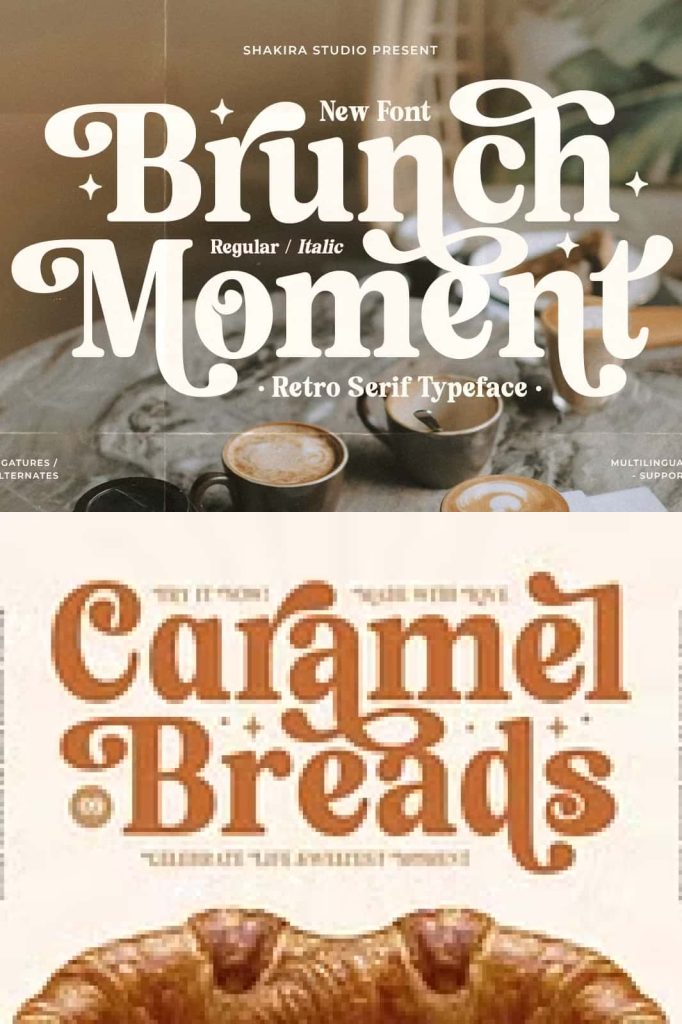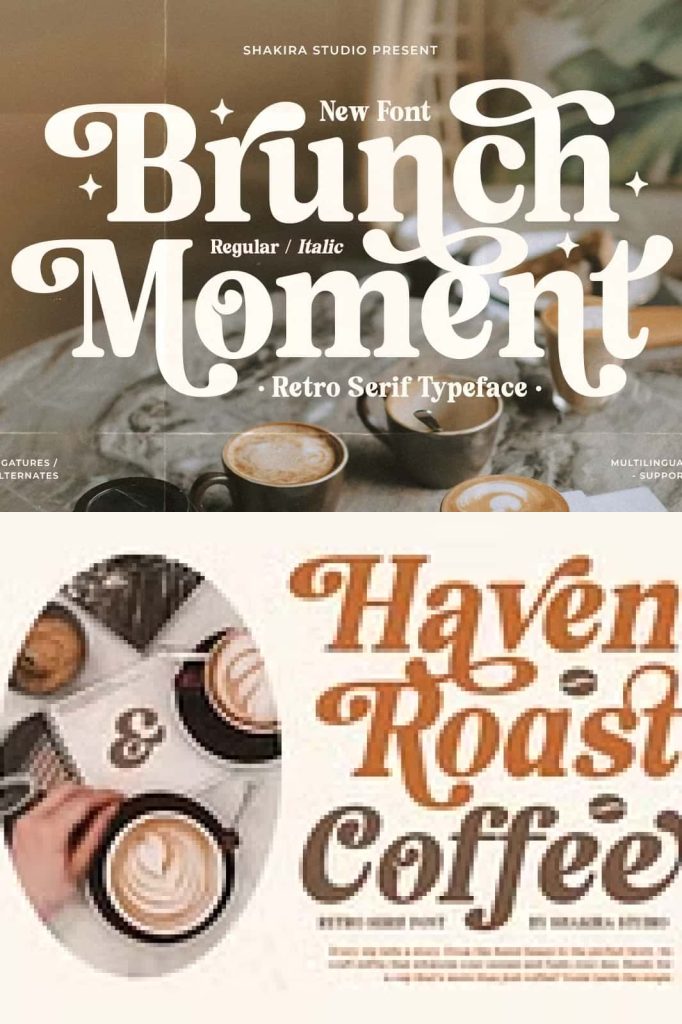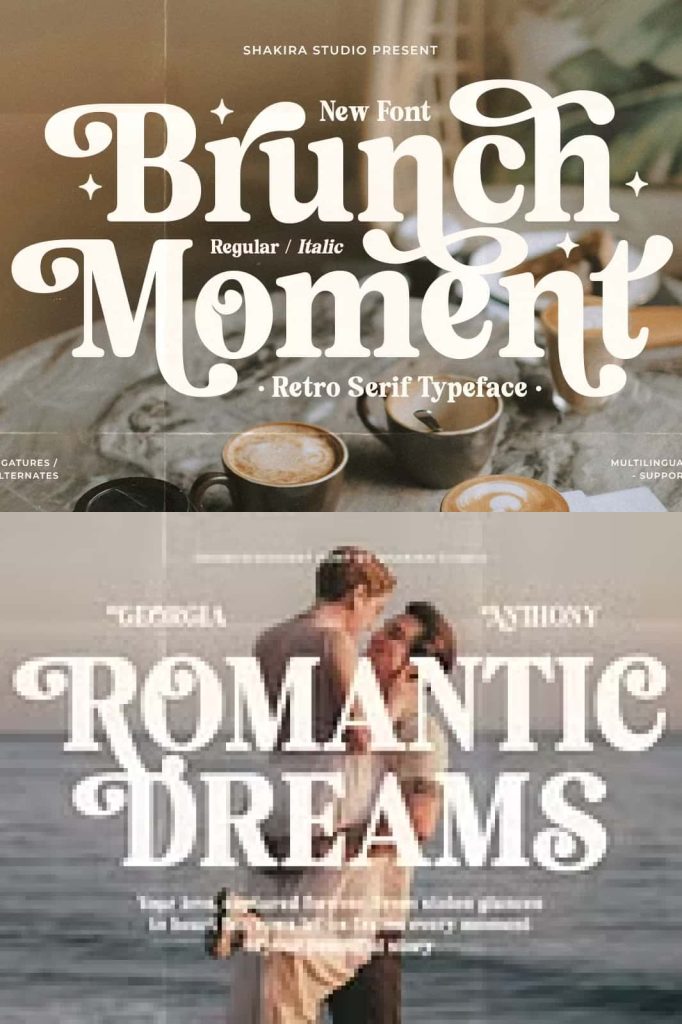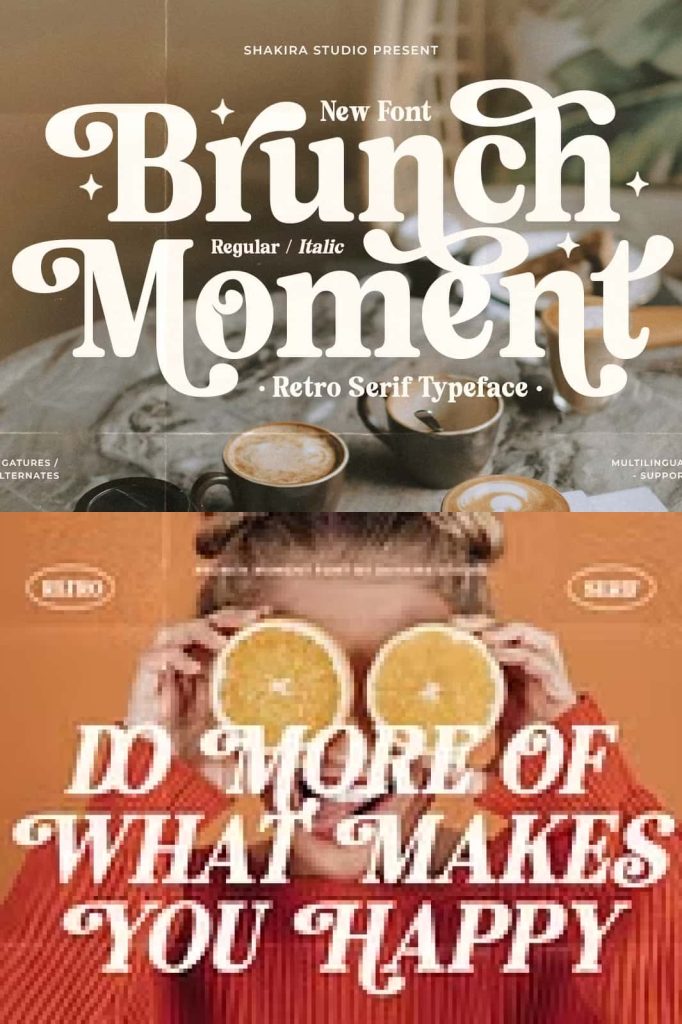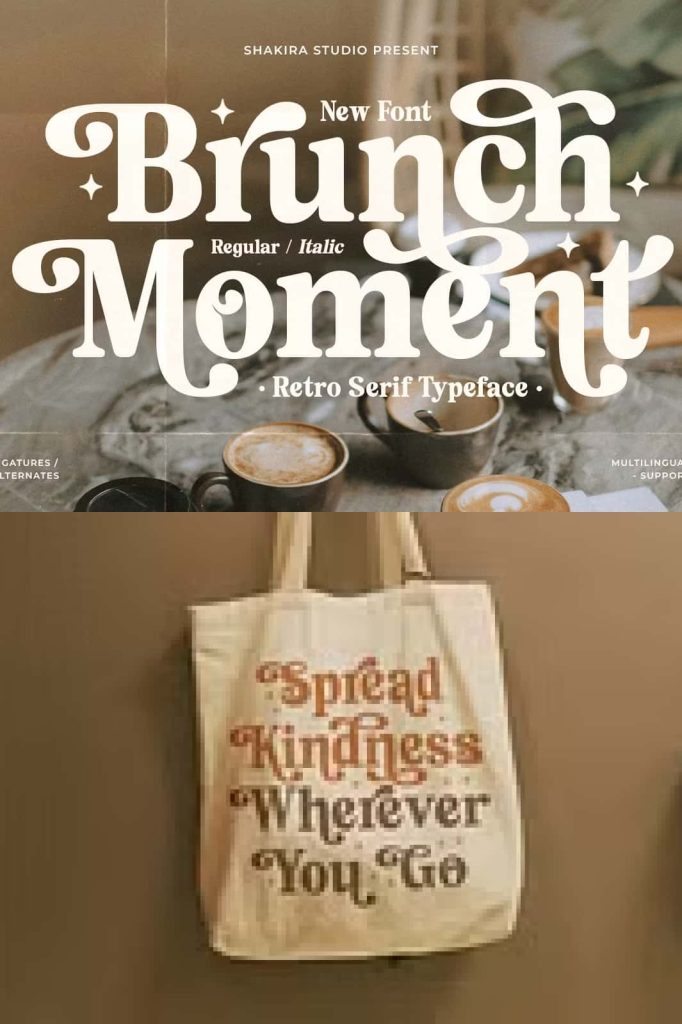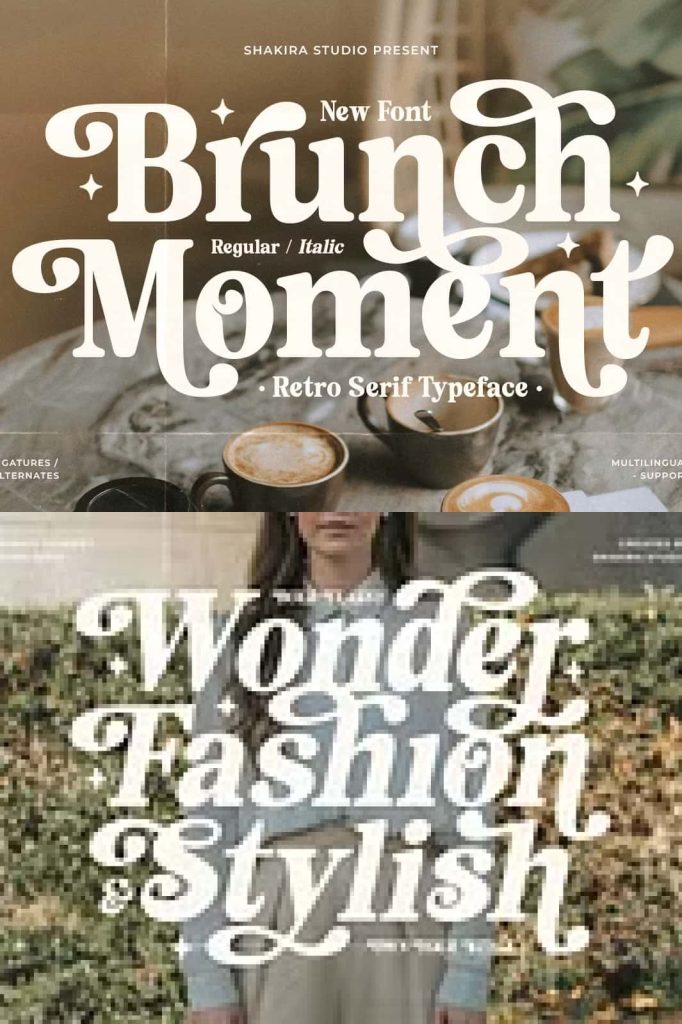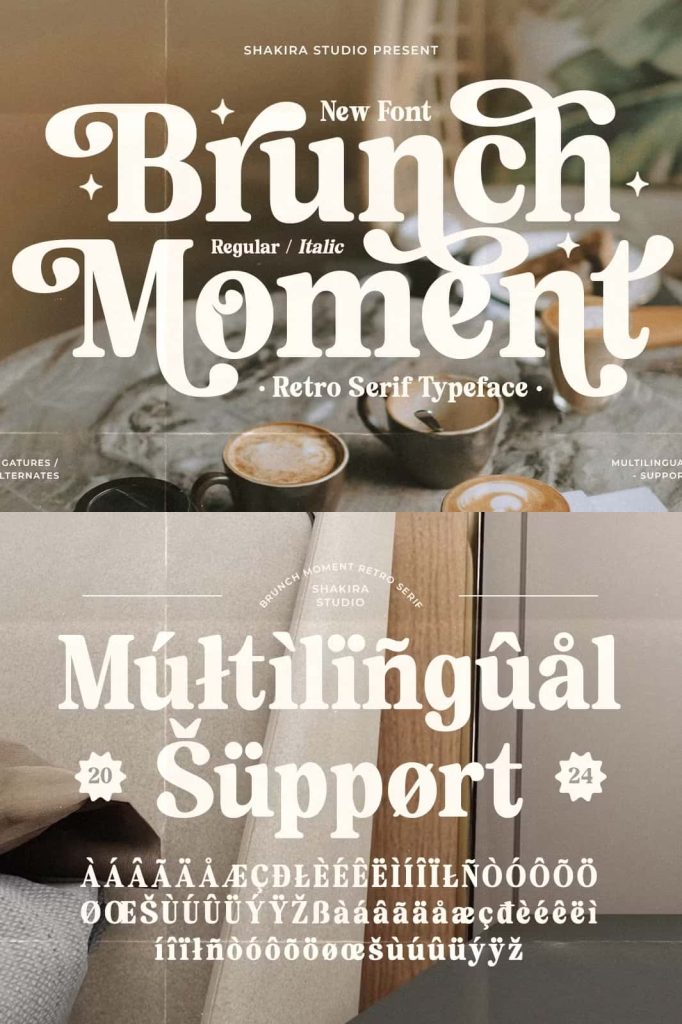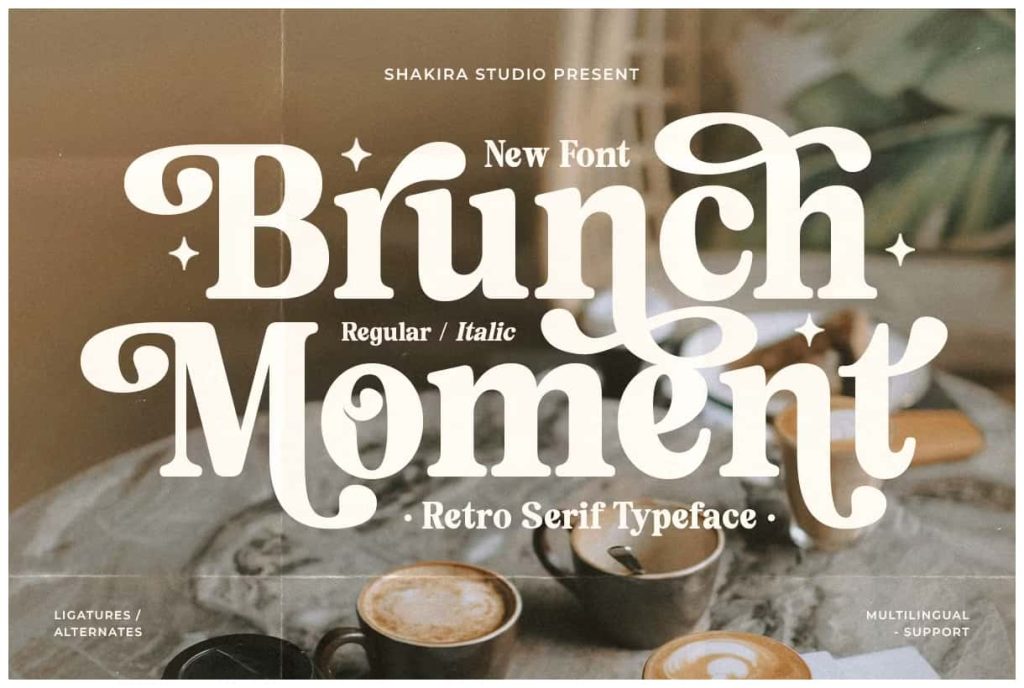
Brunch Moment – Retro SerifleastedFebruary 5, 2025Fonts Brunch Moment is a luxurious retro display serif font available in regular and italic styles. Download